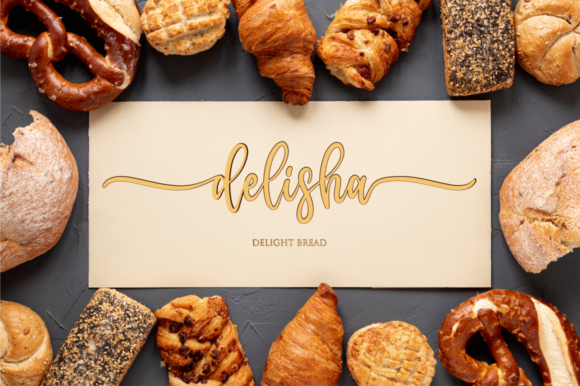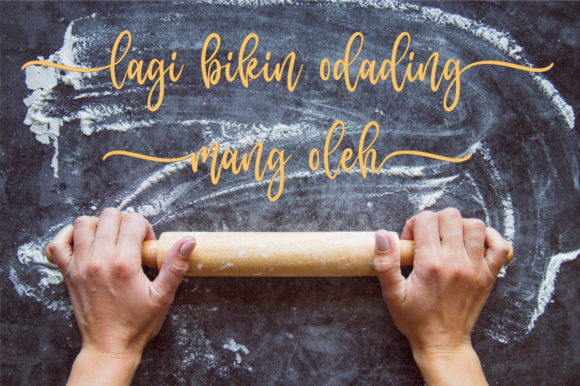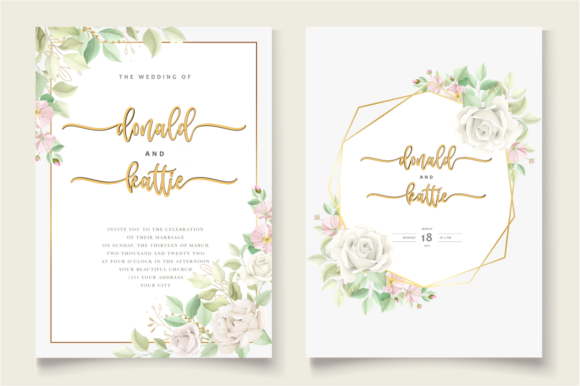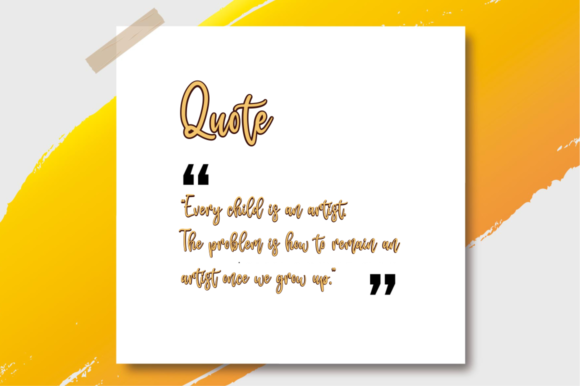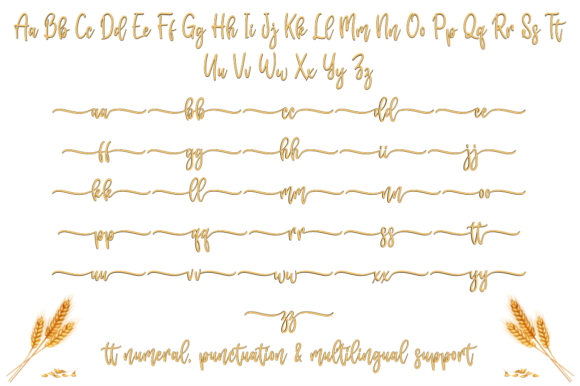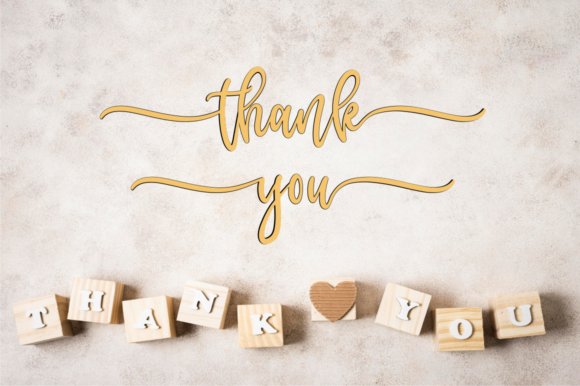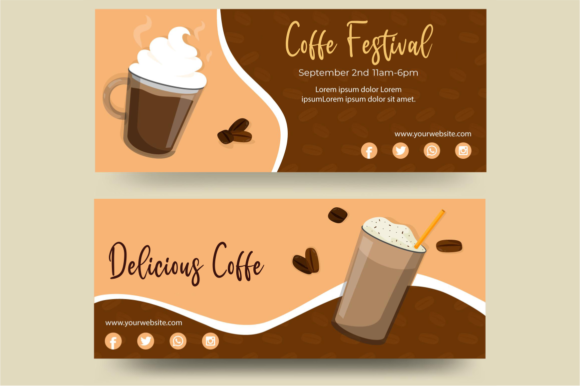
Masterbaker Font
About Masterbaker Font
Masterbaker is a unique handwritten font. It looks stunning on wedding invitations, thank you cards, quotes, greeting cards, logos, business cards and every other design which needs a handwritten touch.